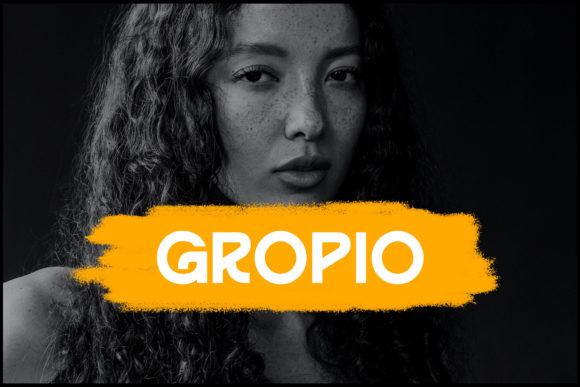
Gropio Font: The Ultimate Sans Serif Font for Modern Designs
In the world of typography, fonts play a crucial role in conveying messages, expressing emotions, and creating visual identities. With the vast array of fonts available, finding the perfect one for your design project can be overwhelming. However, if you’re looking for a cool, adaptable, and neat sans serif font, look no further than Gropio Font. In this article, we’ll explore the features, benefits, and uses of Gropio Font, and why it’s perfect for product packaging, branding projects, magazine covers, social media, weddings, and more.
What is Gropio Font?
Gropio Font is a modern sans serif font designed to be versatile and highly legible. Its clean lines, simple shapes, and elegant curves make it an excellent choice for a wide range of design applications. The font’s adaptability and neat appearance ensure that it can be used in various contexts, from digital media to print materials.
Benefits of Using Gropio Font
- High Legibility: Gropio Font is designed to be highly legible, making it perfect for body text, headings, and titles.
- Versatility: The font’s adaptability ensures that it can be used in various design applications, from product packaging to social media graphics.
- Modern Aesthetic: Gropio Font’s clean lines and simple shapes give it a modern and sleek appearance, perfect for brands looking to convey a contemporary image.
- Easy to Read: The font’s clear and elegant curves make it easy to read, even at small sizes.
Uses of Gropio Font
Gropio Font is perfect for a wide range of design applications, including:
- Product Packaging: The font’s clean and modern appearance makes it ideal for product packaging, adding a touch of sophistication to your brand’s products.
- Branding Projects: Gropio Font’s versatility and adaptability make it perfect for branding projects, helping to create a consistent visual identity for your brand.
- Magazine Covers: The font’s bold and elegant appearance makes it perfect for magazine covers, grabbing the attention of readers and setting the tone for your publication.
- Social Media: Gropio Font’s modern aesthetic and high legibility make it perfect for social media graphics, helping to create engaging and shareable content.
- Weddings: The font’s elegant curves and simple shapes make it perfect for wedding designs, adding a touch of sophistication to your wedding materials.
Tips for Using Gropio Font
To get the most out of Gropio Font, here are some tips to keep in mind:
- Pair it with Images: Gropio Font pairs perfectly with images, adding a touch of sophistication to your designs.
- Experiment with Colors: The font’s adaptability ensures that it can be used with a wide range of colors, so don’t be afraid to experiment and find the perfect combination for your design.
- Use it Consistently: To create a consistent visual identity, use Gropio Font consistently across all your design materials.
In conclusion, Gropio Font is a cool, adaptable, and neat sans serif font that’s perfect for modern designs. Its high legibility, versatility, and modern aesthetic make it an excellent choice for a wide range of design applications. Whether you’re looking to create product packaging, branding projects, magazine covers, social media graphics, or wedding designs, Gropio Font is the perfect choice. So why not give it a try and see how it can elevate your designs to the next level?